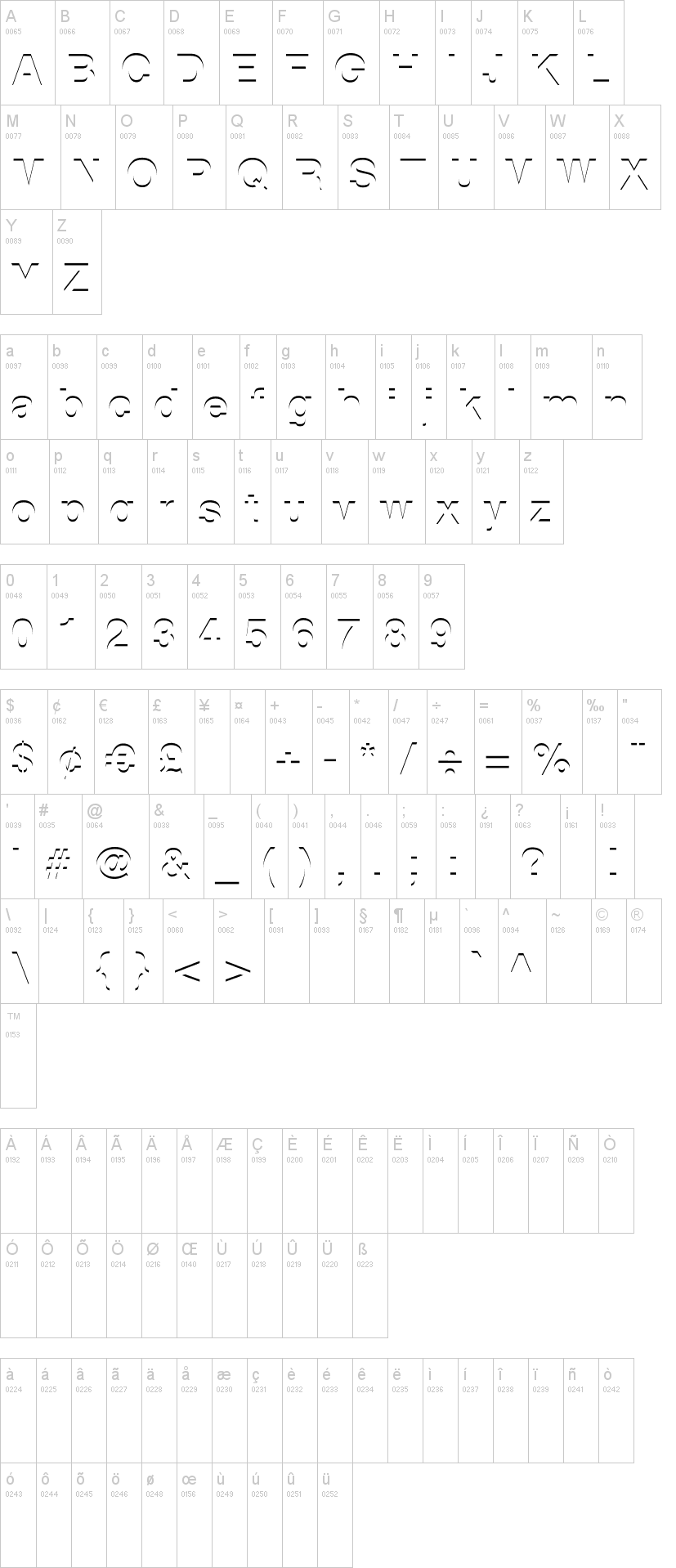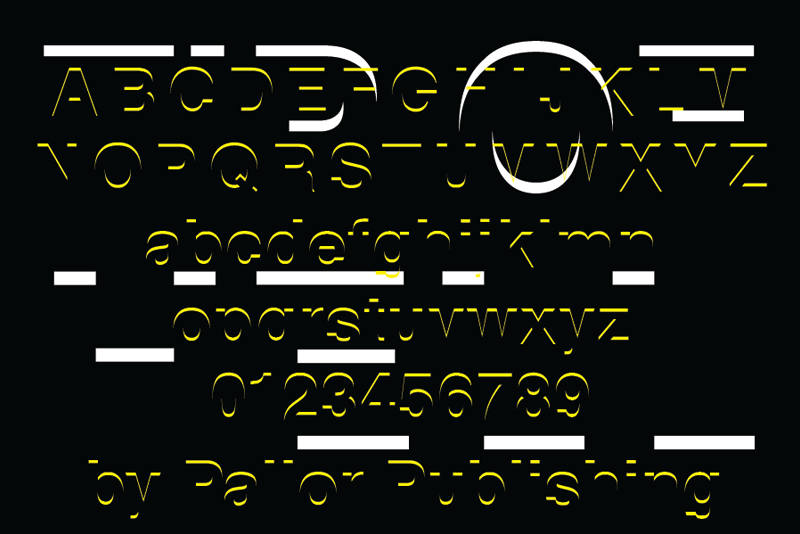
Note of the authorTip Of Hell exposes the very tips of Helvetica Bold. It was designed by using a very easy effect that designers can create quite easily. This font isn't designed to be useful in all situations. It does, however, have a creepy kind of feel to it, and is surprisingly readable in certain situations. It is simply, for bettor or worse, the literal Tip of Hell.